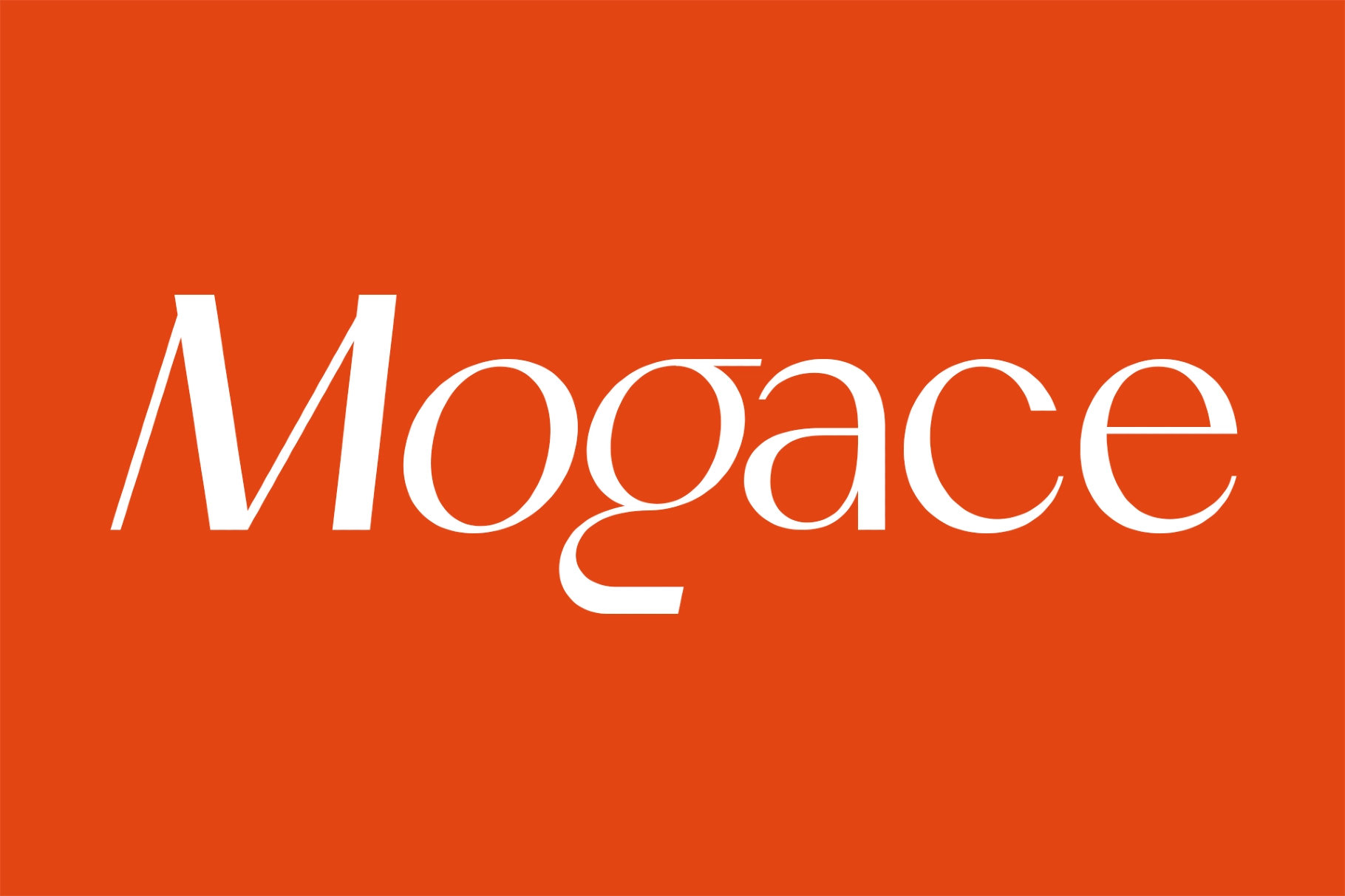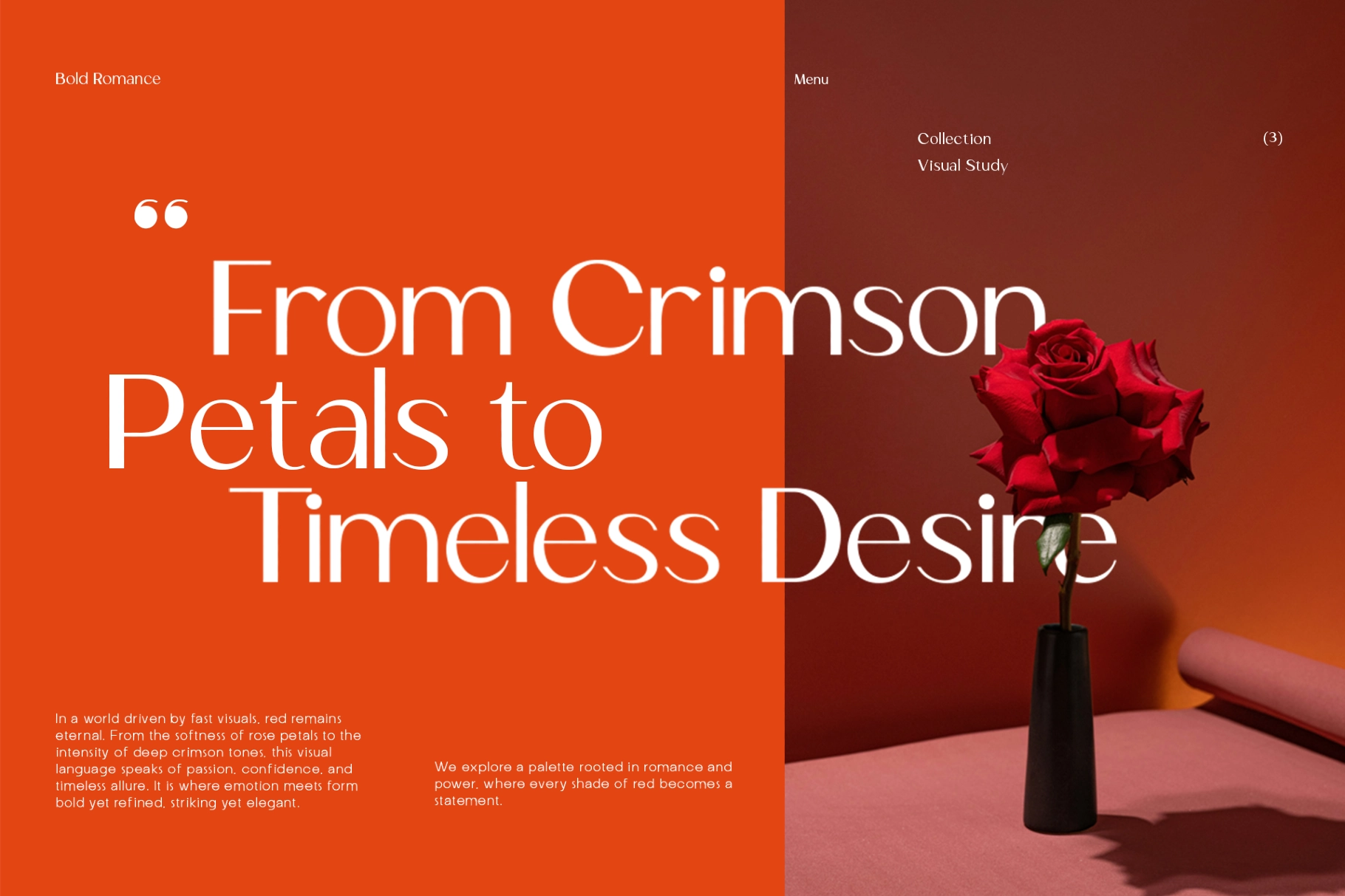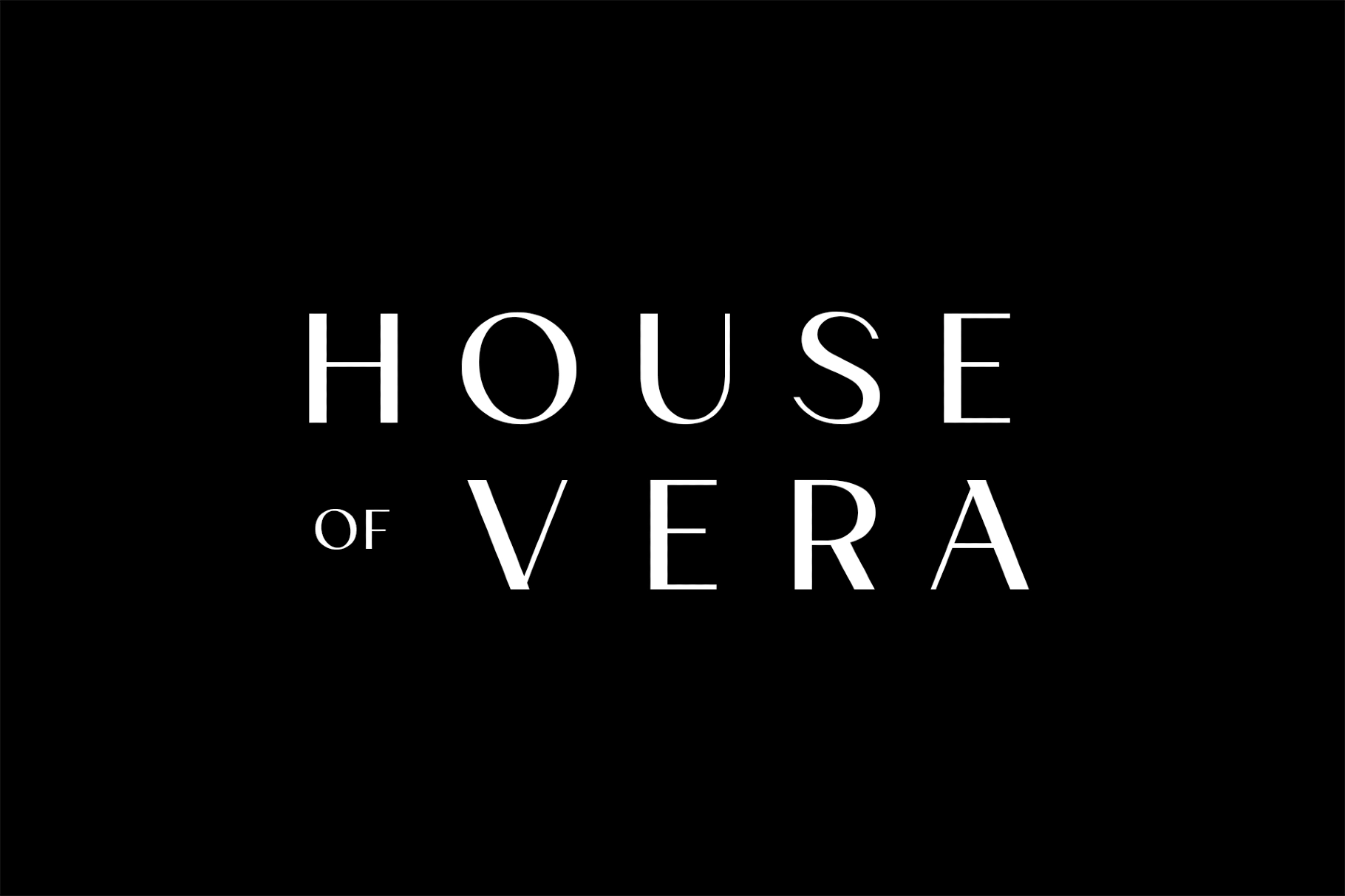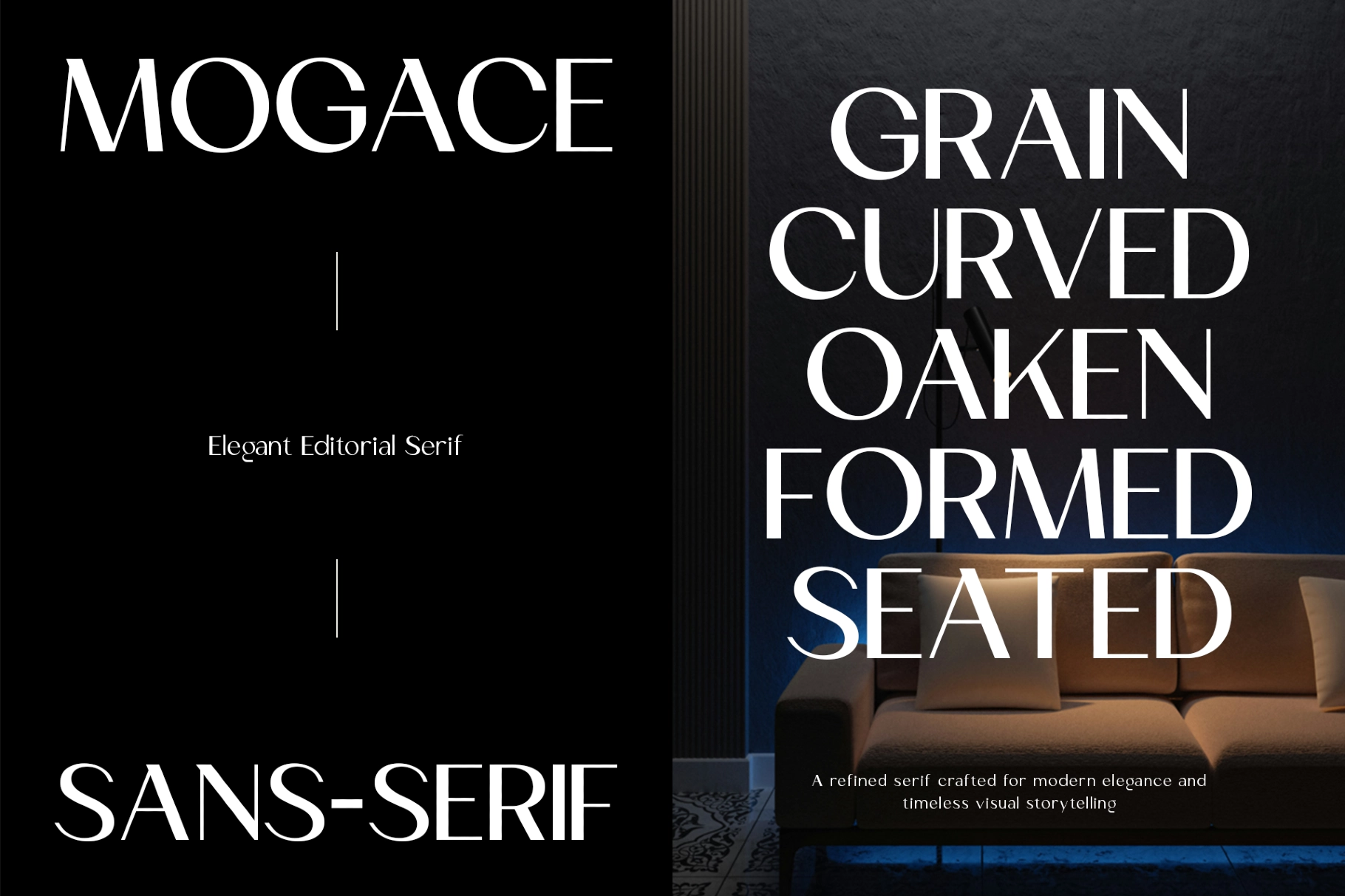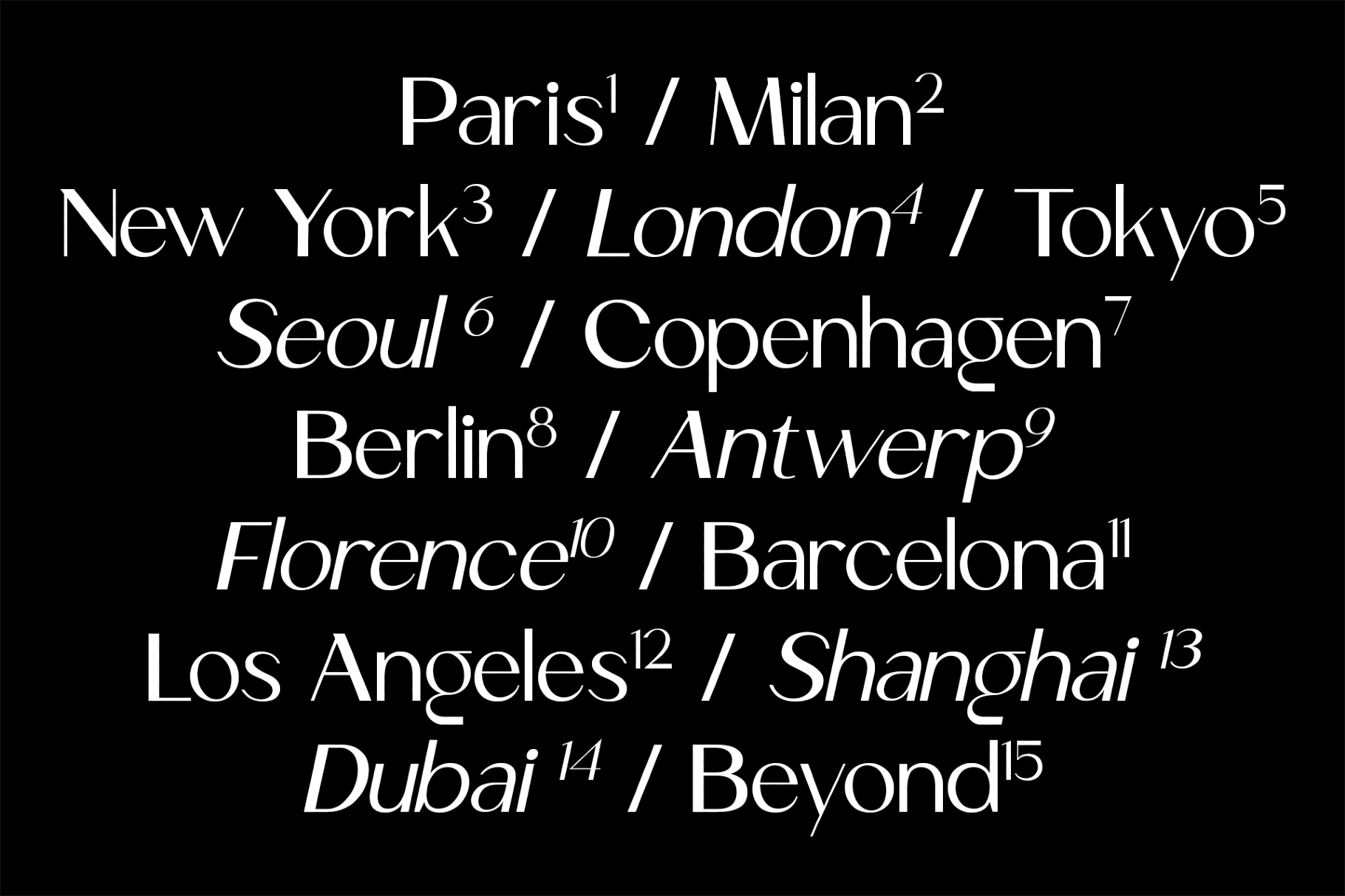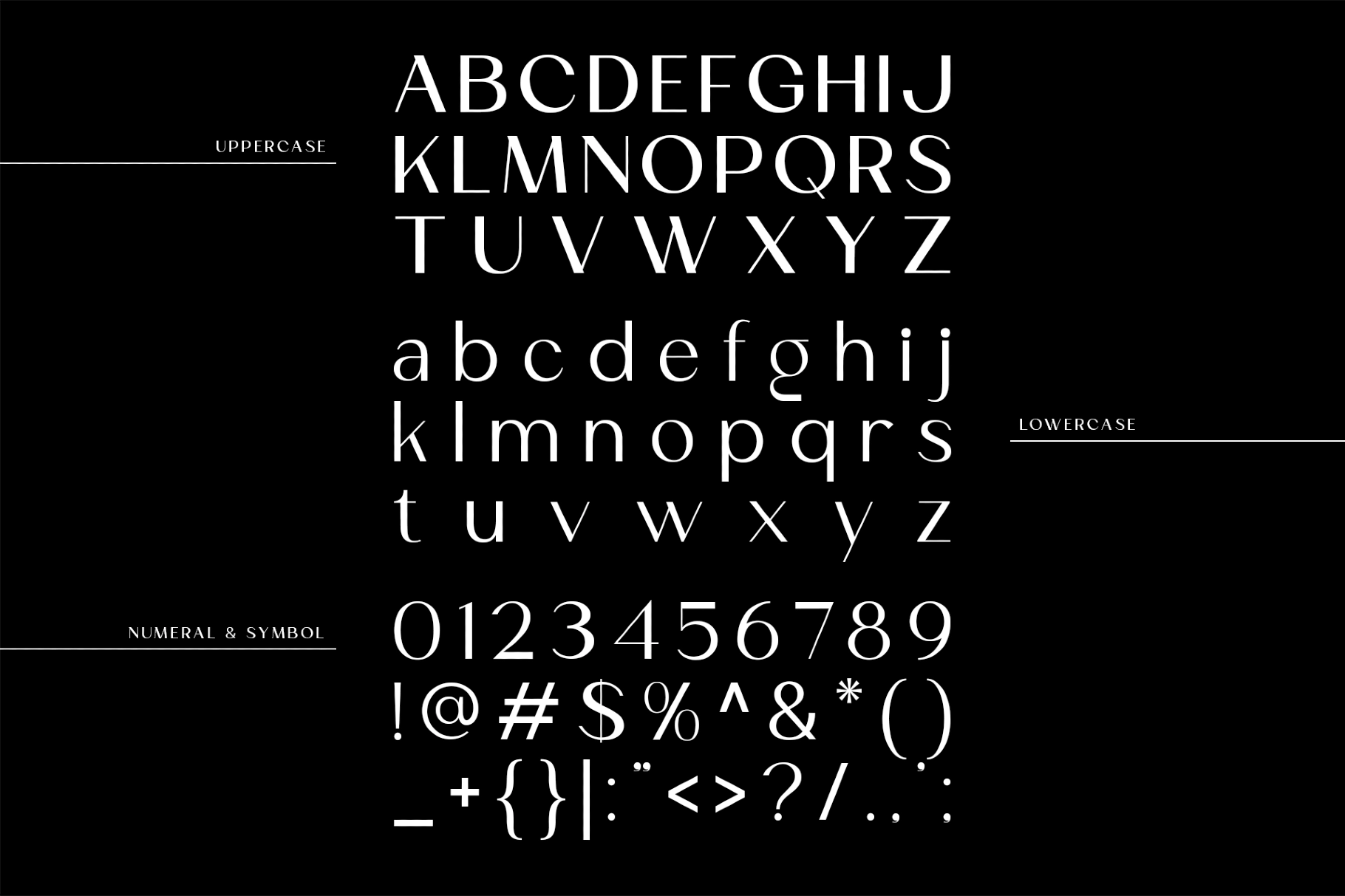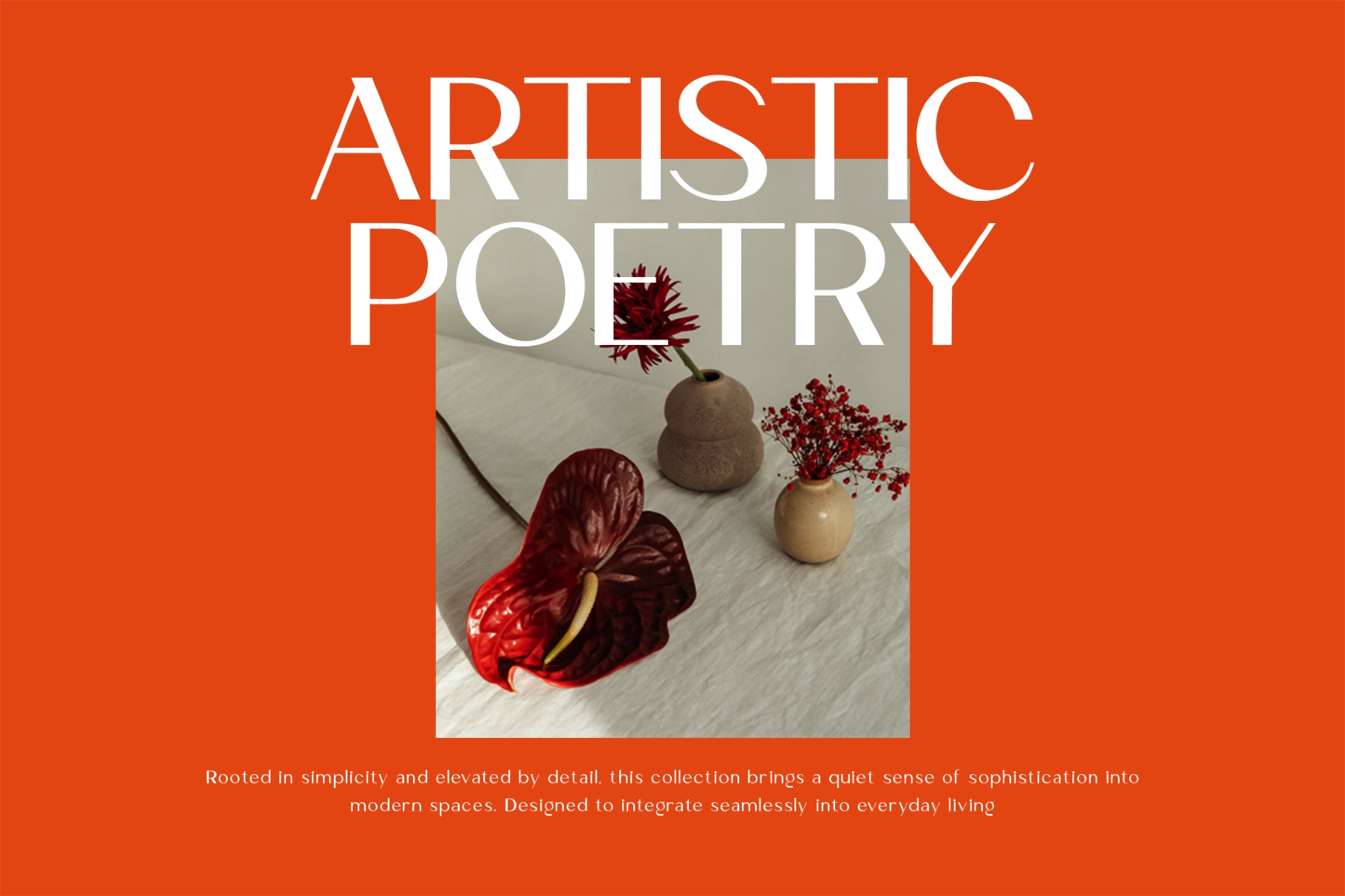
Mogace – Elegant Editorial Sans Serif Font
Oblique
Fine-lined, high-contrast, and quietly dramatic, this editorial serif typeface is made for layouts that need polish without shouting across the room. Its slender curves, sharp weight shifts, and generous spacing give logos, headlines, and magazine-style compositions a clean luxury rhythm.
Mogace is suited for fashion editorials, boutique branding, interior design studios, beauty packaging, gallery invitations, lookbooks, perfume labels, hotel identities, art catalogs, restaurant menus, wedding stationery, and more. The full character set includes uppercase, lowercase, numerals, symbols, ligatures, and stylistic alternates, giving designers room for refined wordmarks and expressive title work.
- Ligatures & Stylistic Alternates
- Numerals & Symbols
- Smooth kerning & spacing